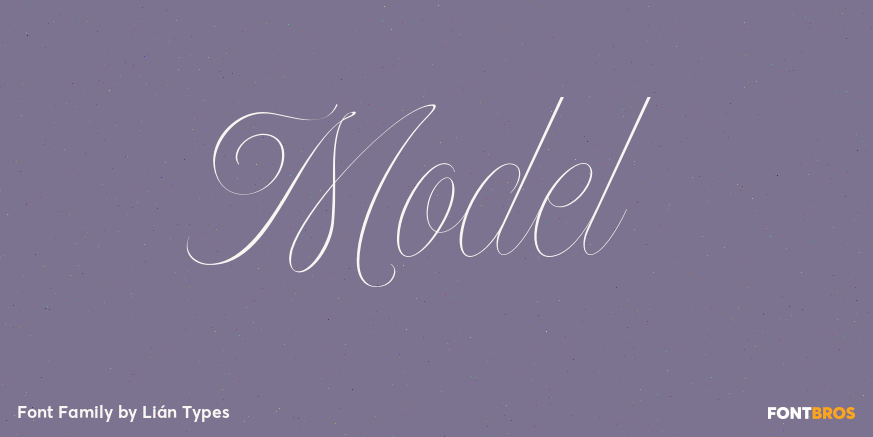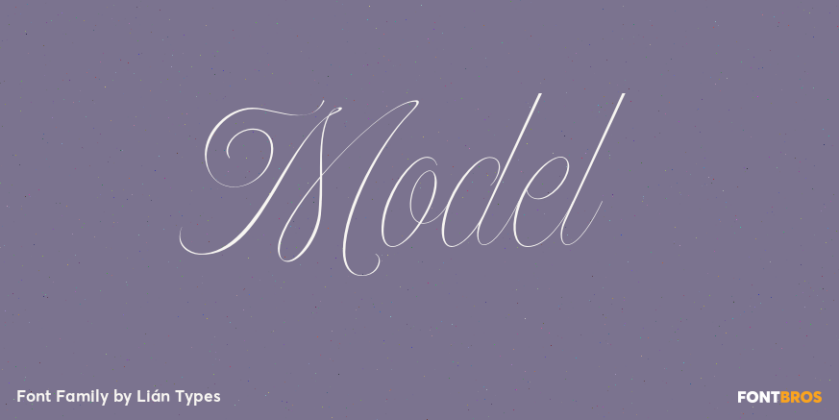
Model
About Model
When designing a typeface, one has to be conscious of superfluous details. Although I am always tempted to add little personal touches, experience taught me that the phrase -less is more- is totally true. In Model, the letters (like models do) participated…